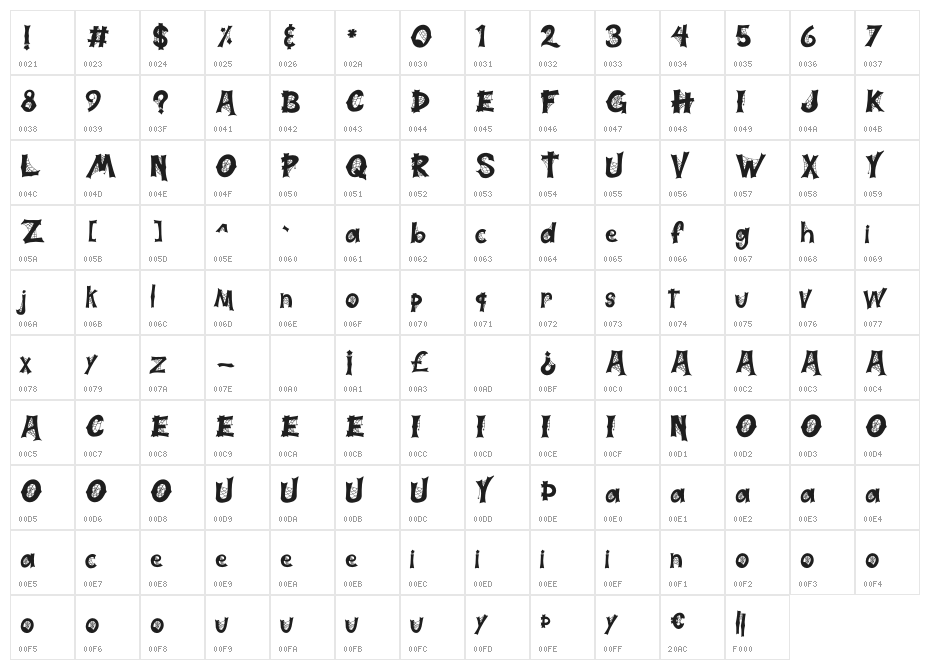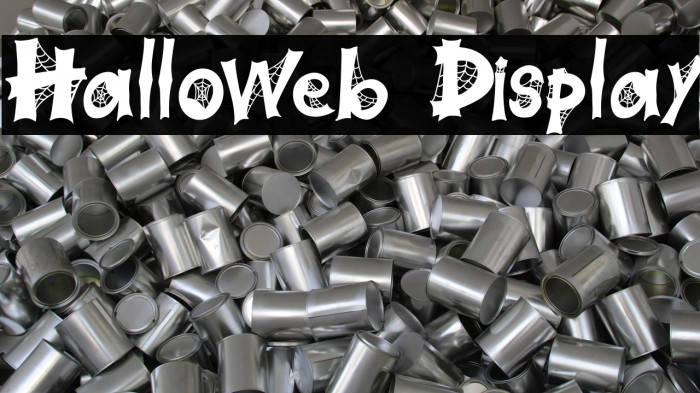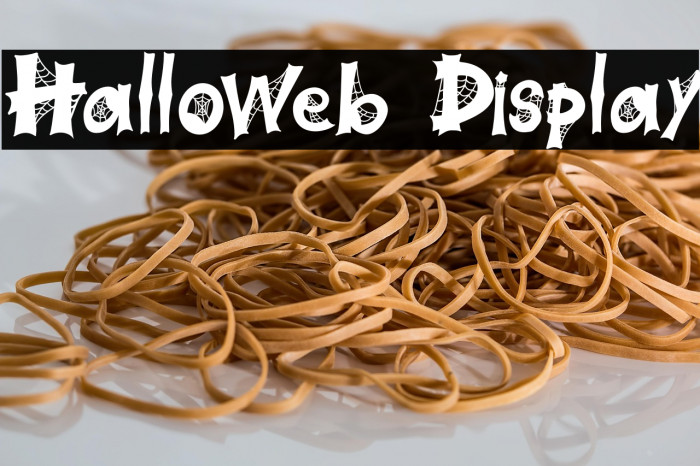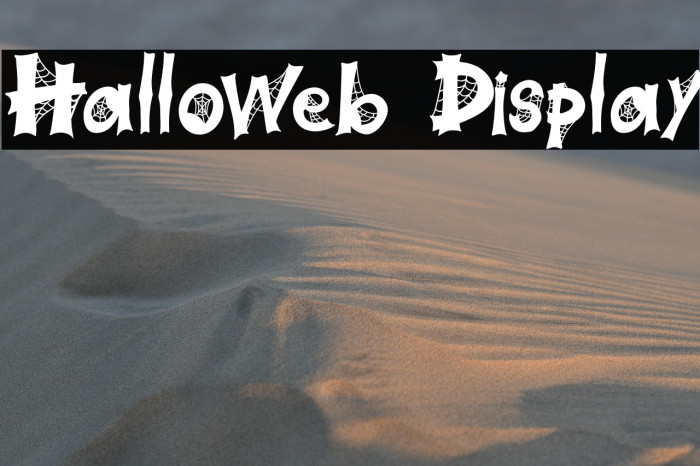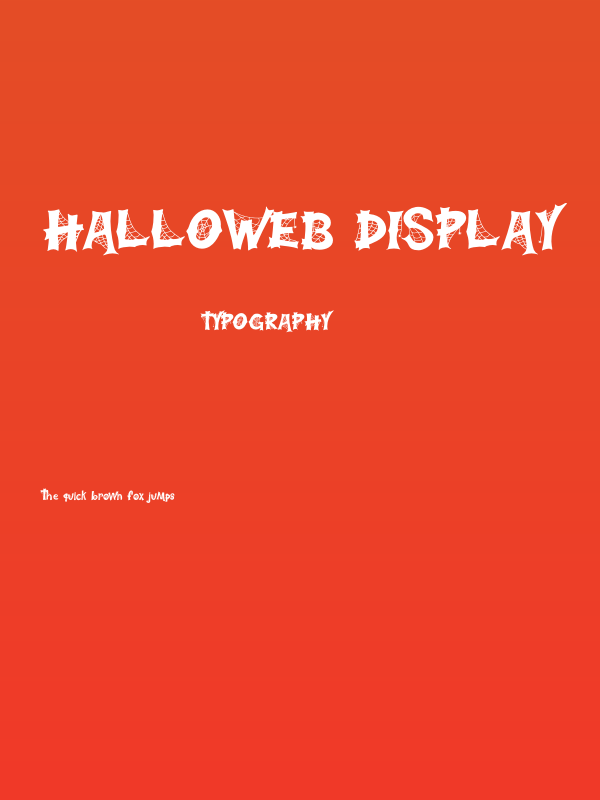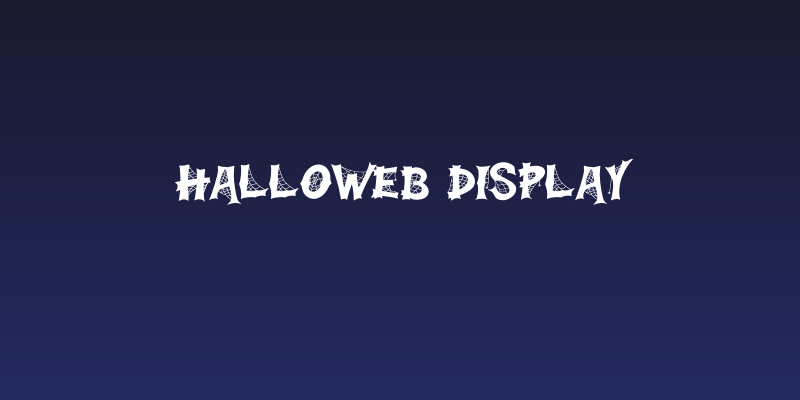
Halloweb Display Font
Halloweb Display Description
This font features a playful and spooky design, incorporating cobweb elements into each character, creating a Halloween-themed aesthetic. The letters are bold and slightly irregular, enhancing the eerie and whimsical feel. The uppercase and lowercase letters maintain a consistent style, with the cobwebs adding a decorative touch that is both intricate and eye-catching. The numbers and special characters follow the same theme, making the font cohesive and suitable for themed events or projects. The overall design is unique and captures the essence of Halloween with its creative use of web motifs.
| Proposed Projects | Ideal for Halloween invitations, themed posters, party decorations, and spooky branding projects. |